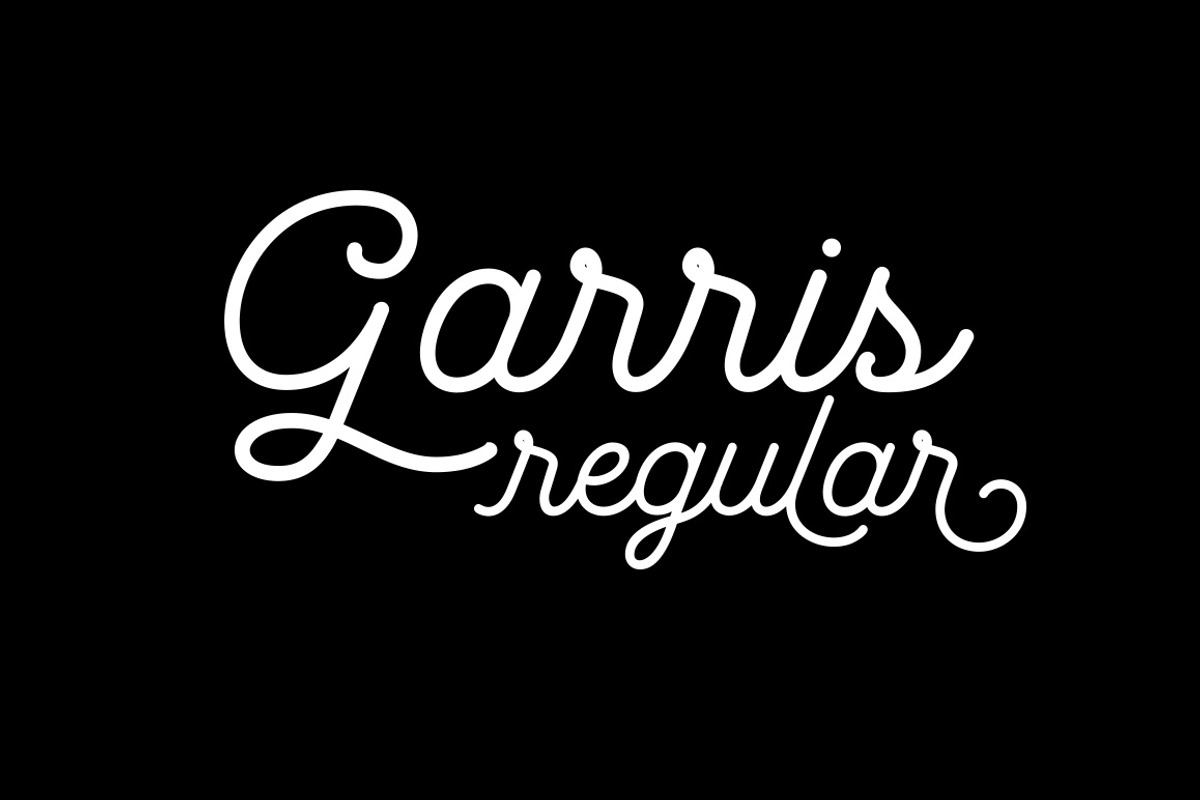
Garris Regular Font Free Download is a clean and versatile typeface that blends modern elegance with readability. Featuring smooth lines and a balanced structure, this font is perfect for a wide range of design projects, including branding, editorial layouts, websites, social media, and logos. Its timeless and professional look ensures that your designs will maintain a polished aesthetic.
Whether you’re building a brand, designing a website, or creating eye-catching content, Garris Regular provides clarity and sophistication to your typography. It’s the ideal font for designers who value clean, functional, and stylish design solutions.